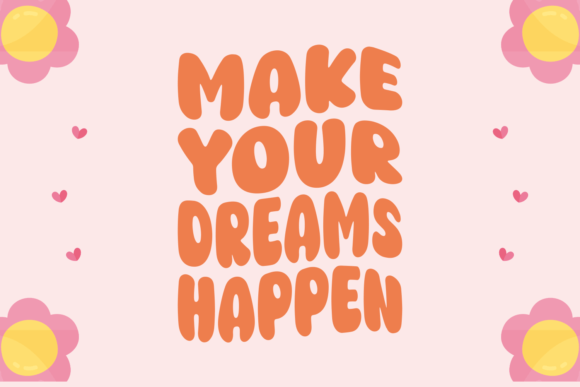
Okay Retro Font
Immerse yourself in nostalgia with our dreamy throwback font, perfect for bringing a splash of vintage charm to your creations. Aptly titled ‘Retro 70s 80s 90s Groovy’, this font effortlessly captures the vibrant disco era vibes in every curve and edge. With its display-decorative style, it is capable of conveying a host of moods, from playful and whimsical to elegant and modern.
Being the best seller, this font has wowed designers with its unmistakable retro aesthetic, reflecting the girl power of the 70s and the funky charm of the 80s. It’s not just for girls though, boys have been equally captivated by its playful, bouncy essence. A wonderful concoction of cute and quirky, it’s starting to trend on Instagram.
Equipped with bonus cursive font styles and designed with Cricut-friendly features, this ‘Retro 70s 80s 90s Groovy’ font is also perfectly suited for digital platforms such as Canva and Procreate. Its versatility makes it a popular choice for quirky quotes, bold poster fonts and more. The allure doesn’t stop with its whimsy alone; it doubles as an elegant choice for modern design, making it a powerhouse of potential in the world of typography. Embrace the retro aesthetic and make ‘Retro 70s 80s 90s Groovy’ your go-to font!